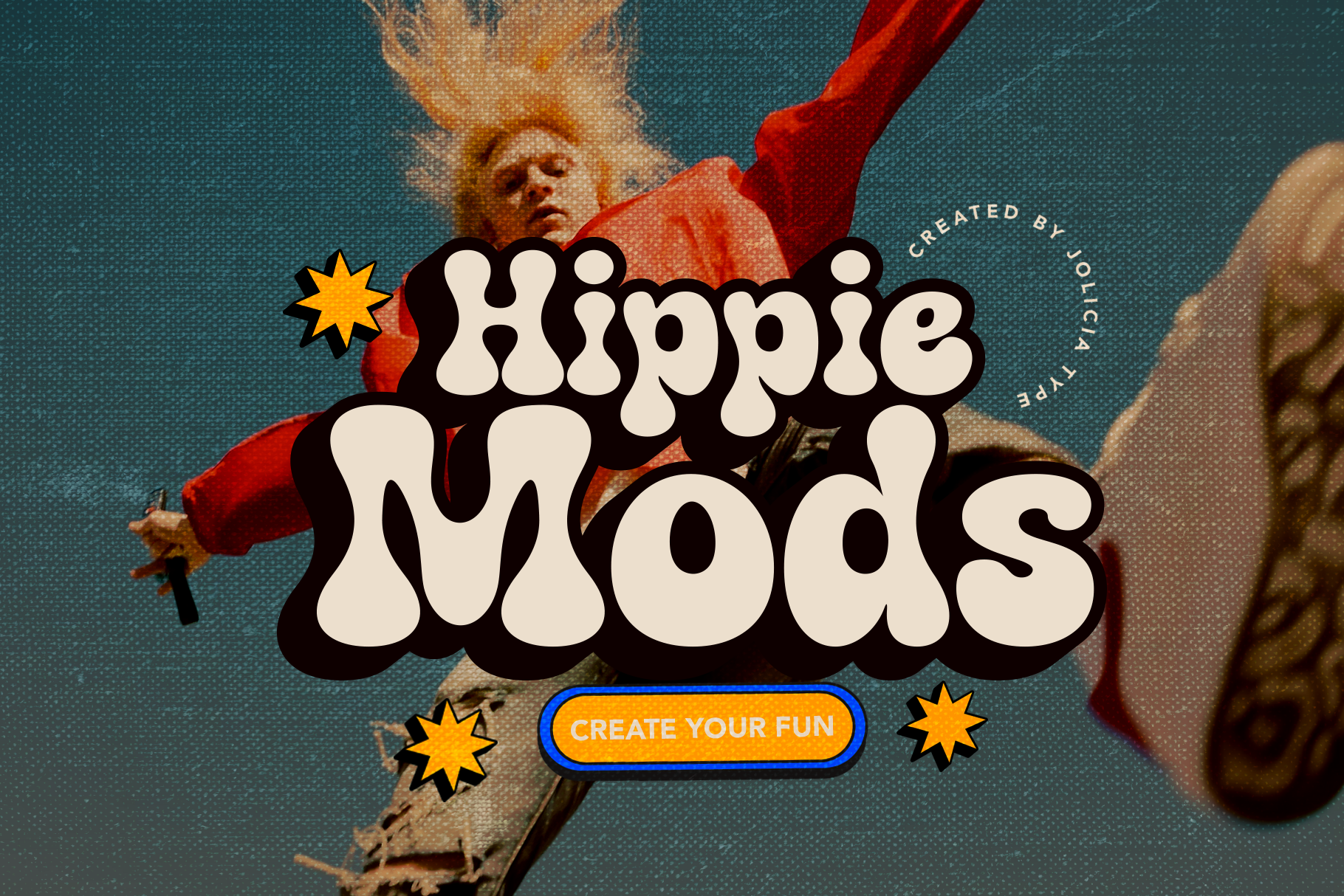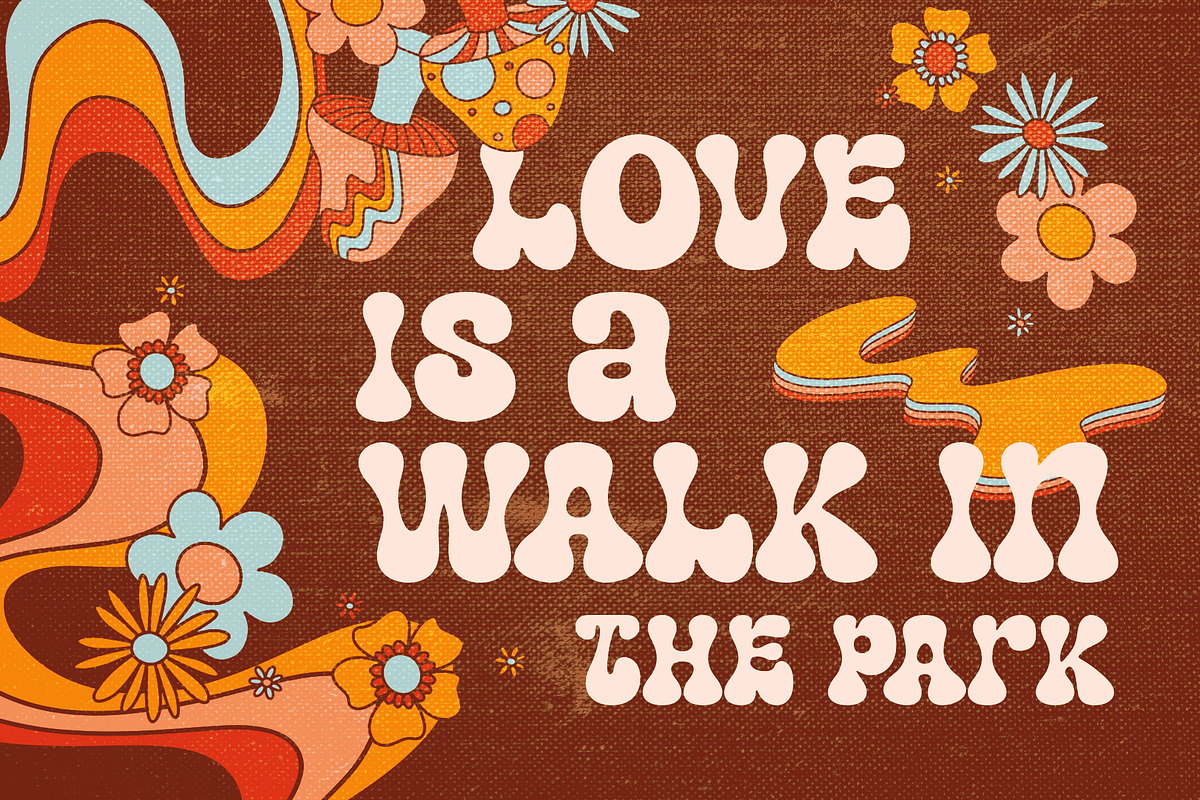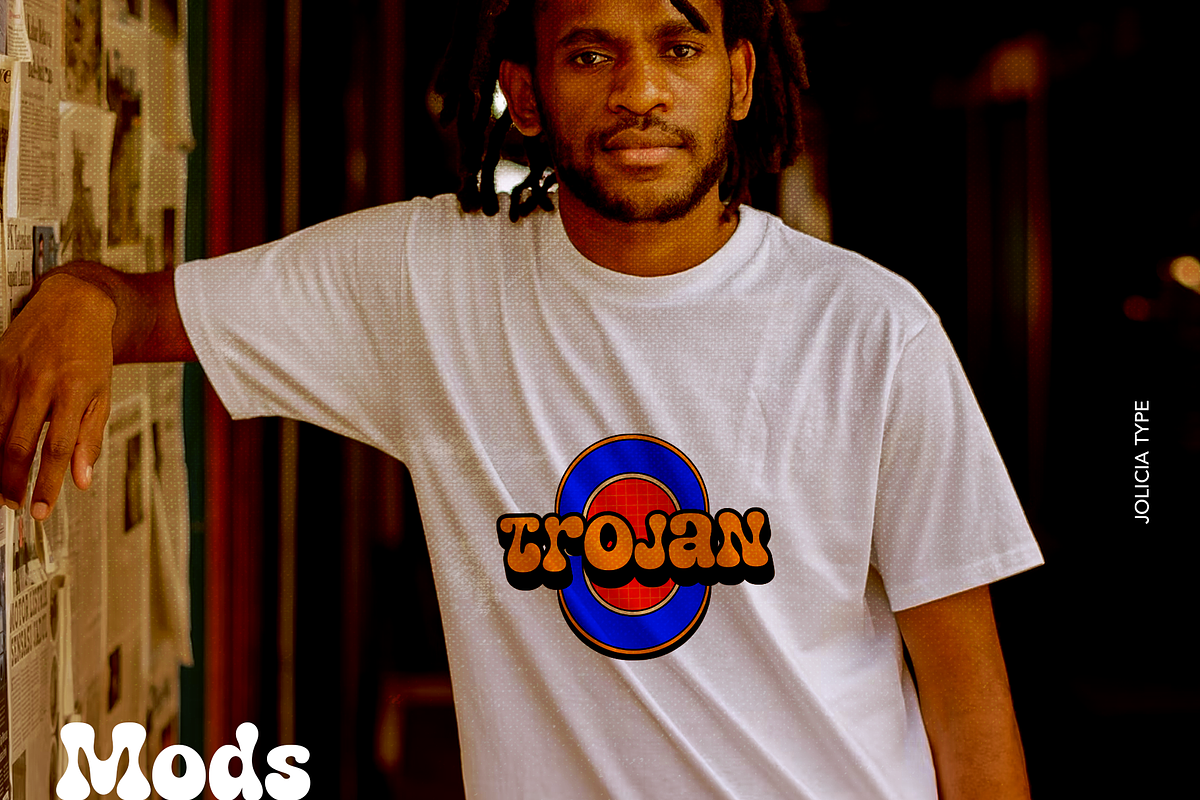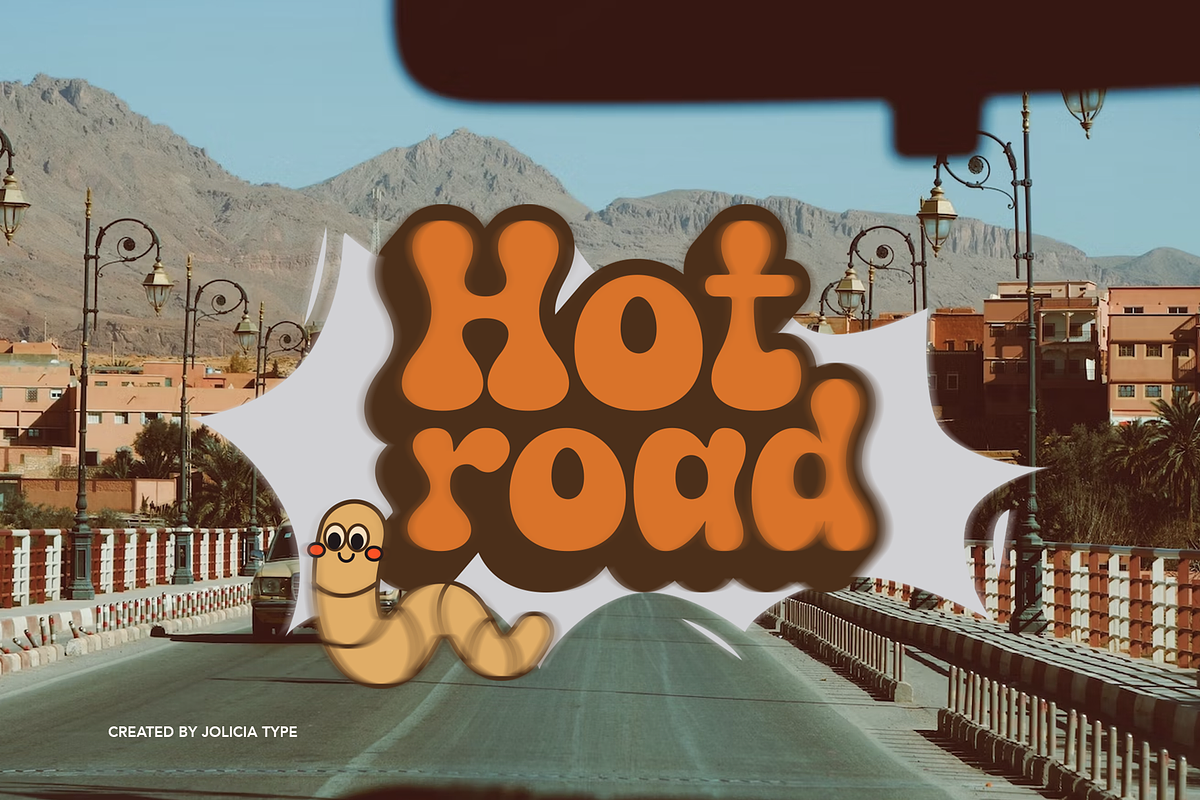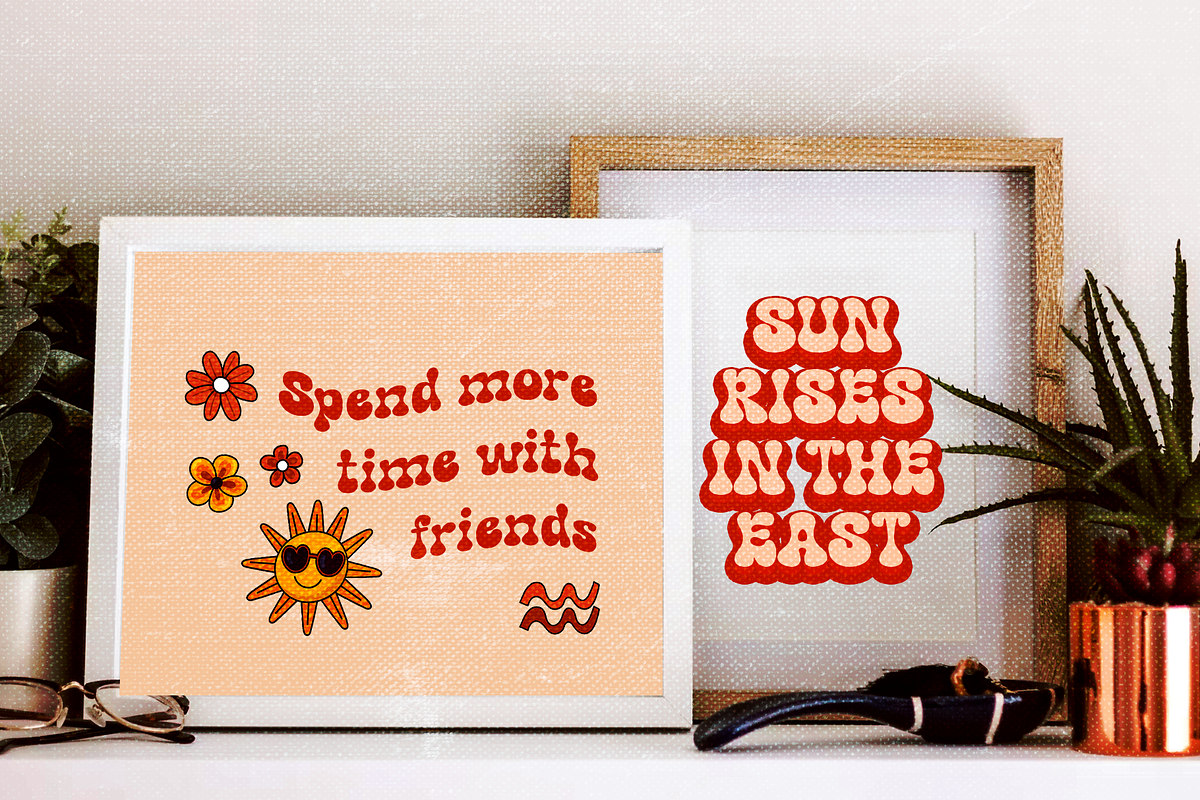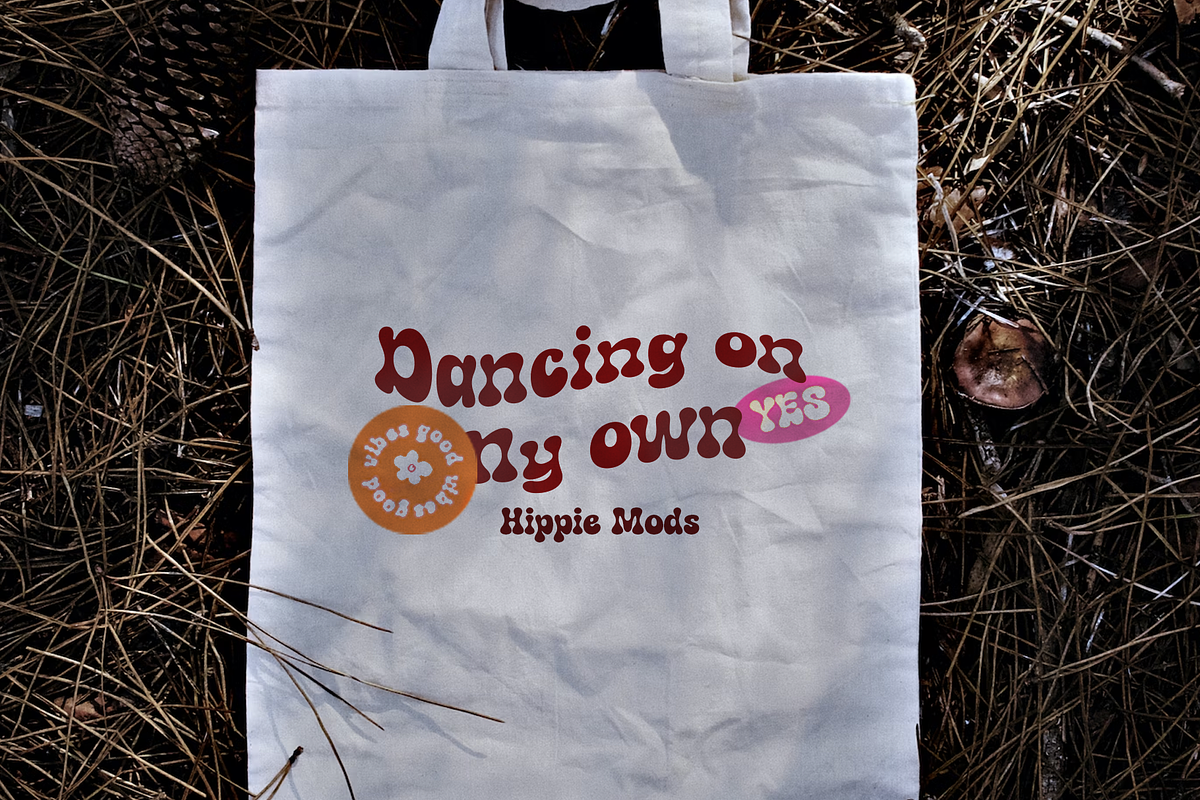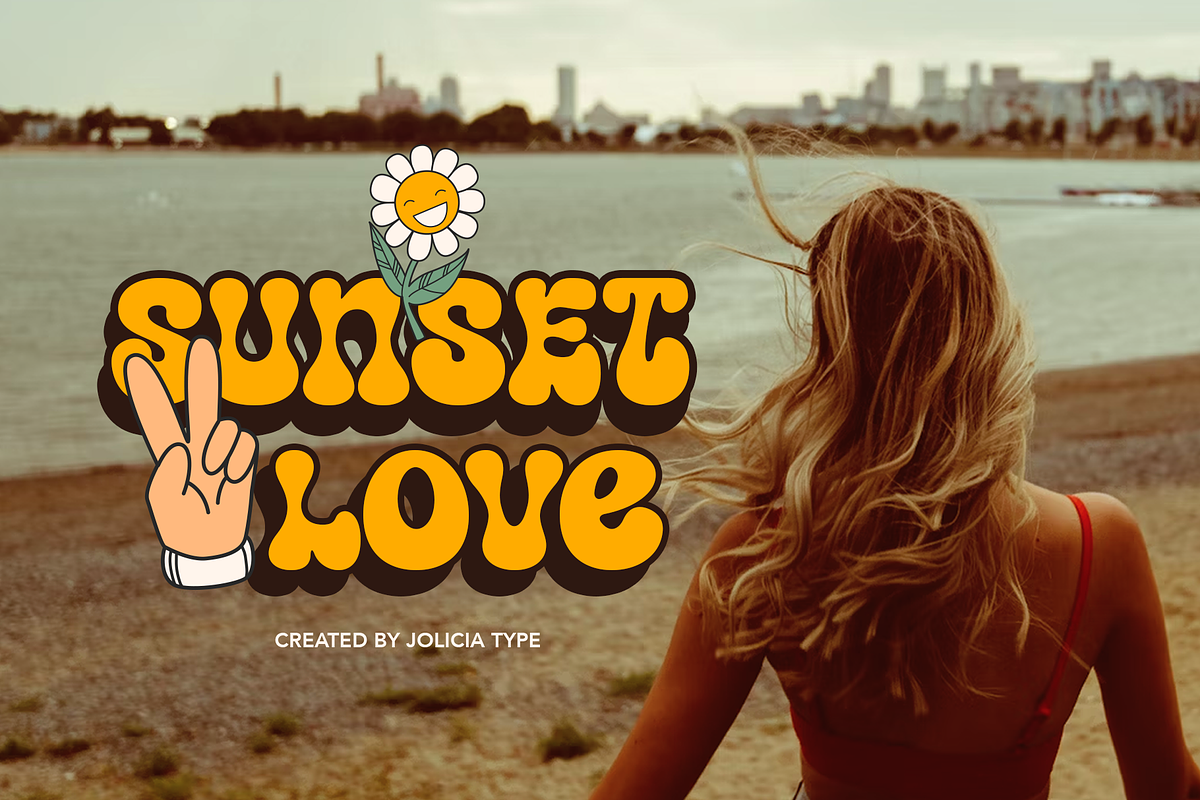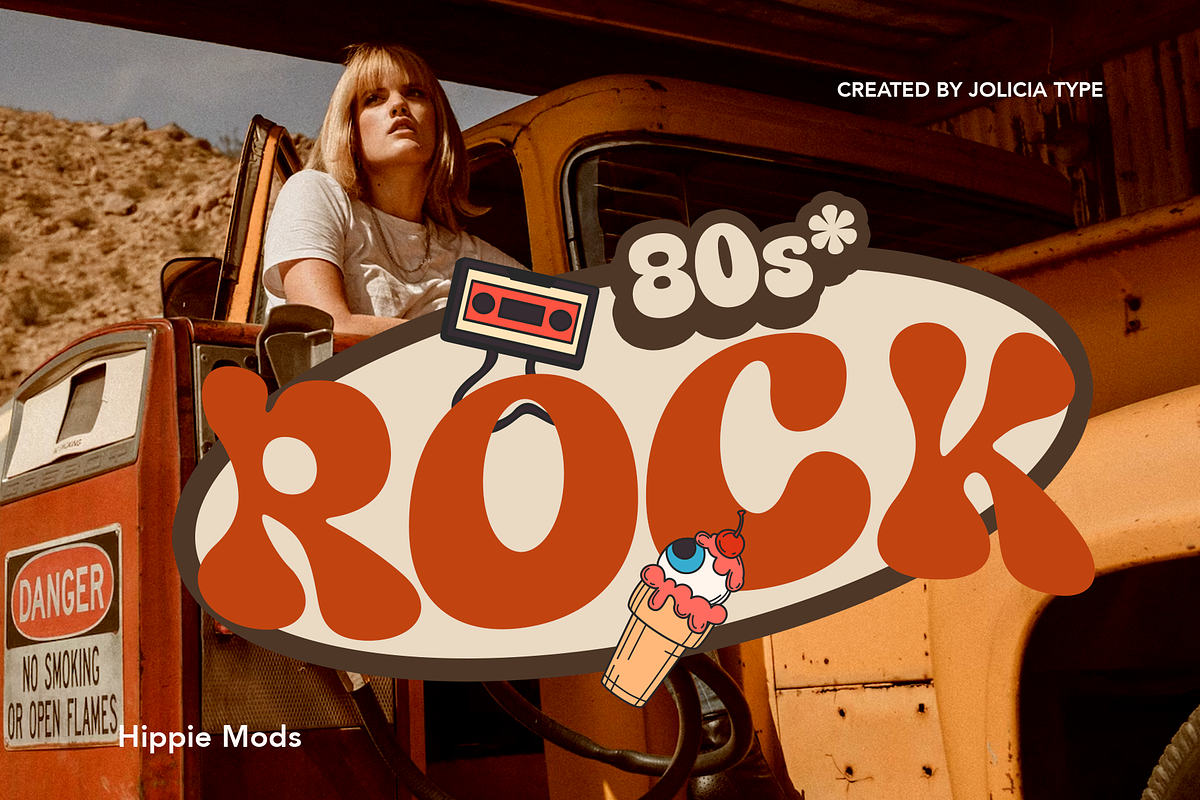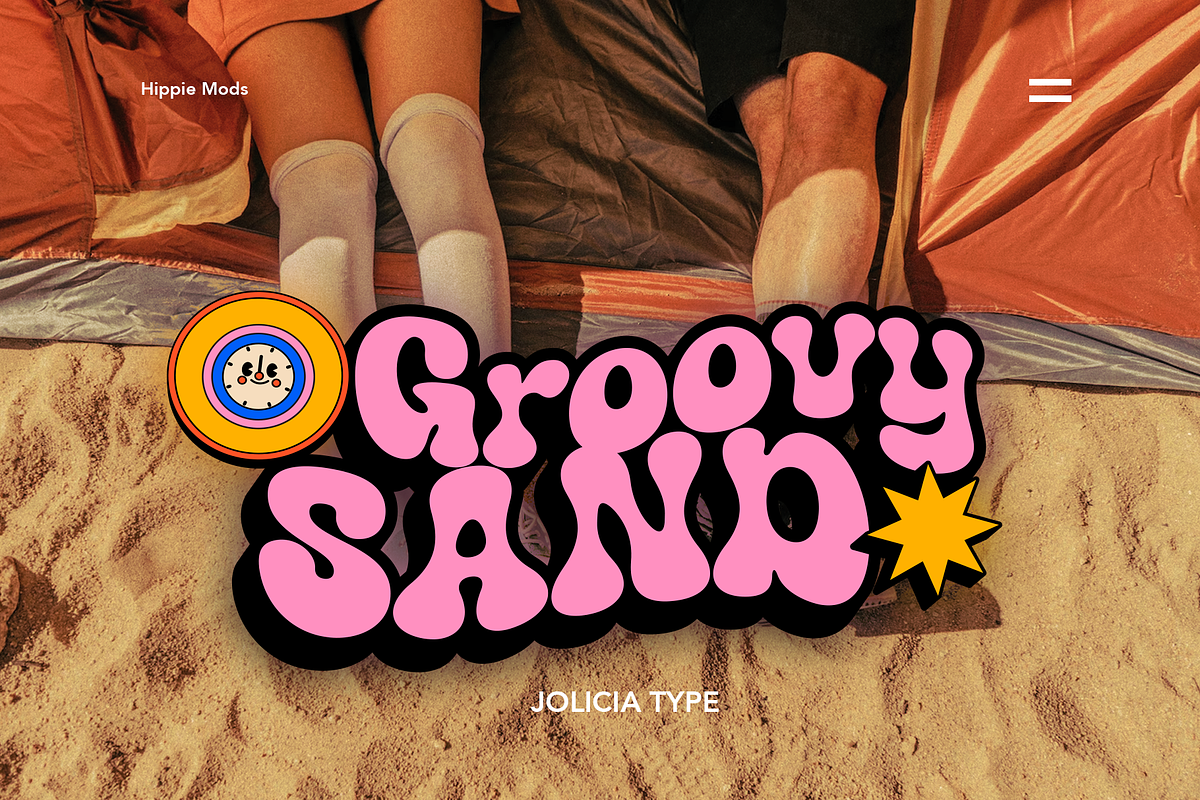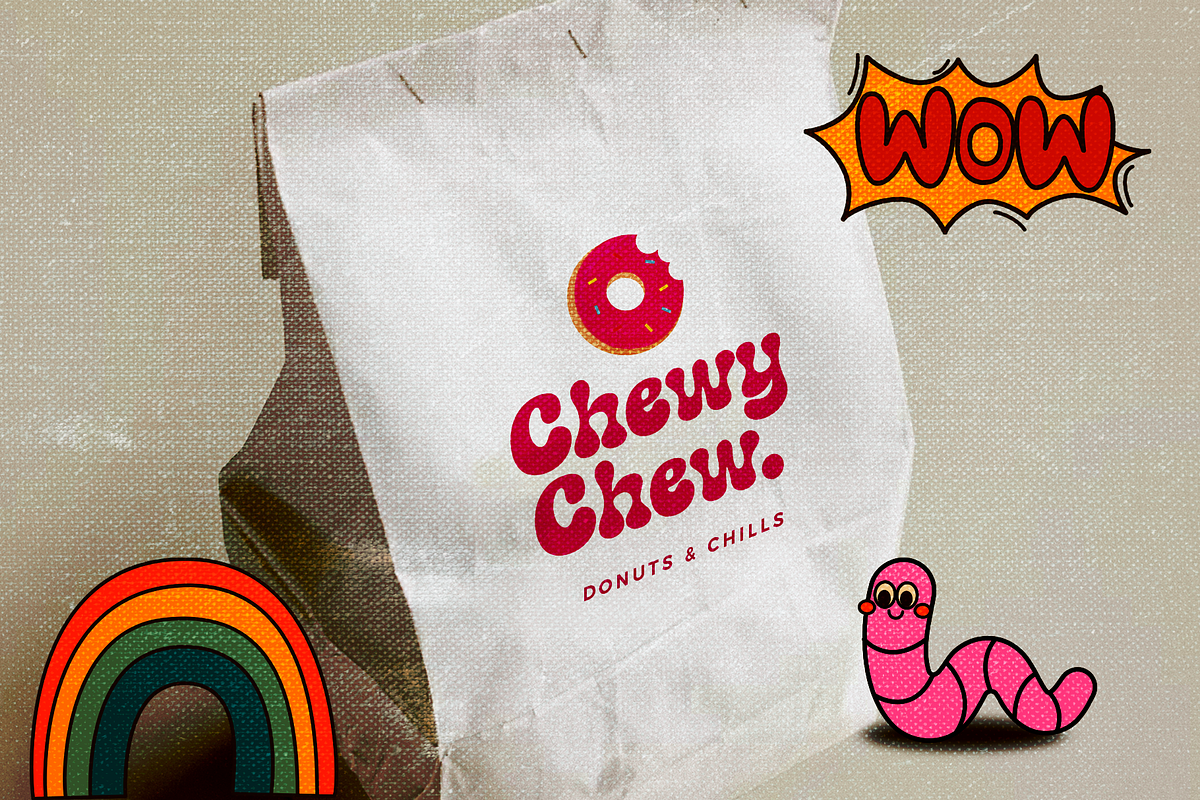
Hippie Mods | Groovy Font
Hippie Mods is a font that takes you back to the psychedelic era of the 1960s and 70s. This fun and retro typeface is a true embodiment of the free-spirited movement, peace and love, capturing the essence of the countercultural revolution in its design. It is the perfect choice for projects that demand a touch of nostalgia and strong individuality. The font's flowing curves, hand-drawn feel, and vintage details evoke the spirit of a bygone era. With a natural color palette and versatile design, Hippie Mods are the perfect choice for adding a touch of nostalgia and whimsy to your creative projects. This typeface will also make your projects radiate the strong spirit of the Hippie era, whether you are creating art, posters, or branding.